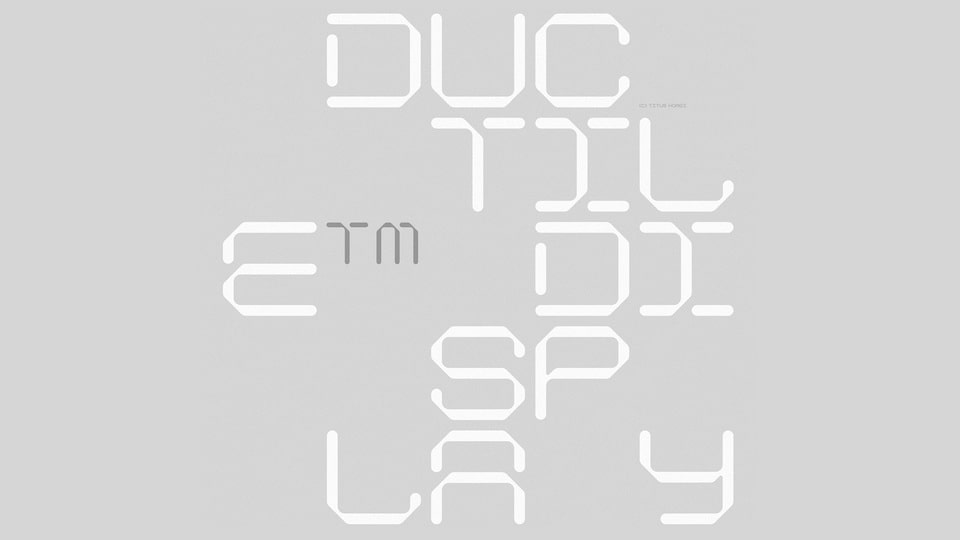
Download Ductile Display font, a futuristic modular display typeface inspired by the concept of ductility, that blends structural resilience with fluid adaptability,